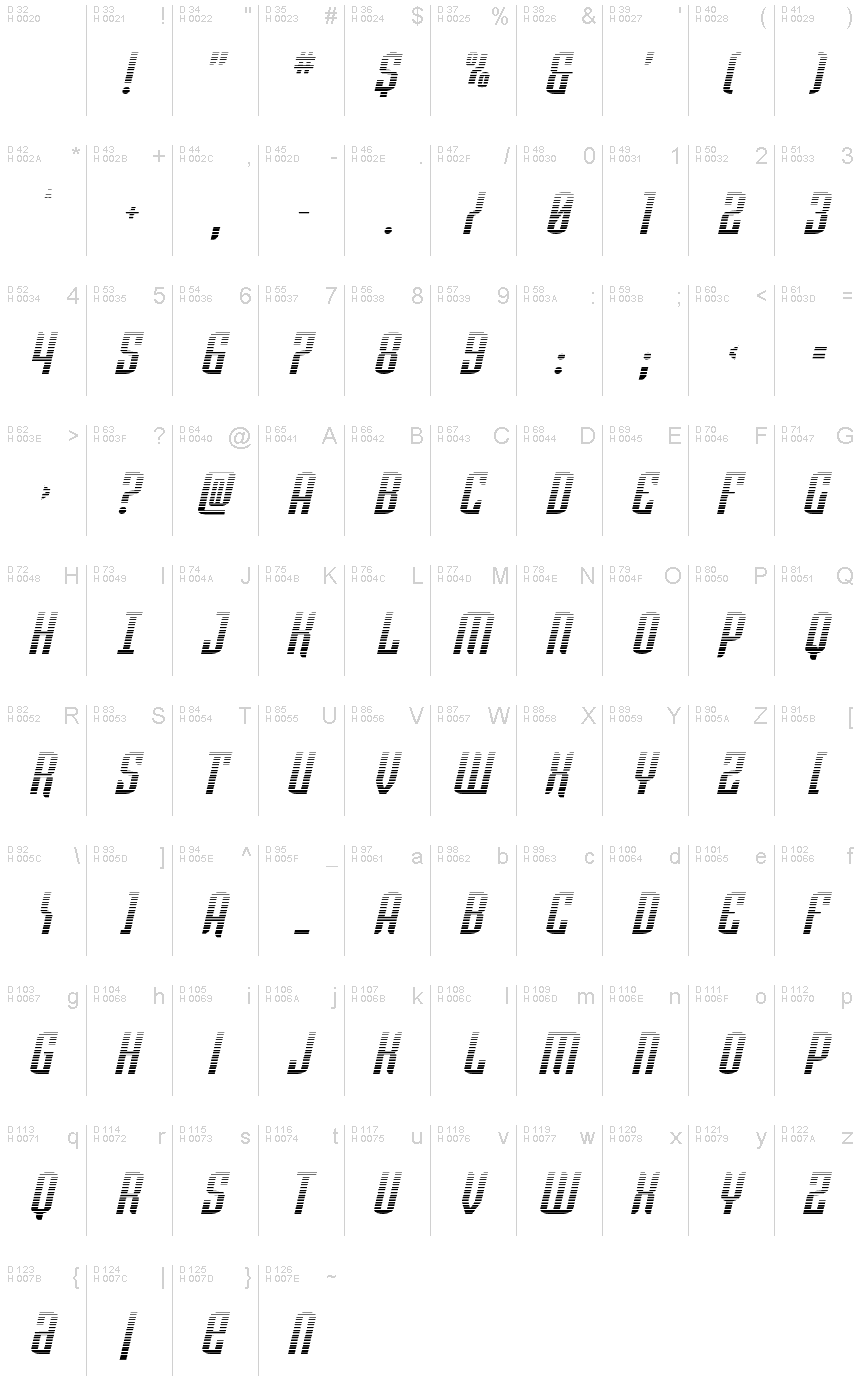
Icewave Gradient Italic
Icewave Gradient Italic is a cutting-edge display font from the renowned designer, Iconian Fonts. Its semi-light weight and extra-condensed width make it perfect for futuristic and technology-themed projects. Whether you're designing a high-tech website, creating eye-catching logos, or producing sleek product packaging, this font will elevate your designs with its edgy and modern style. With its gradient effect, Icewave Gradient Italic adds depth and dimension to any text, capturing attention instantly. Embrace the future with this unique typeface that guarantees to leave a lasting impression on your audience.